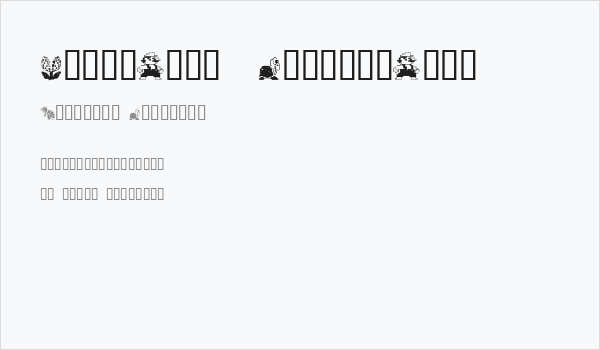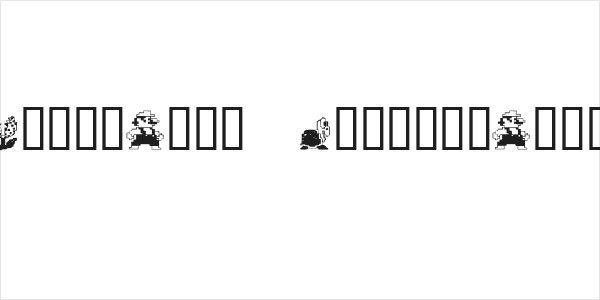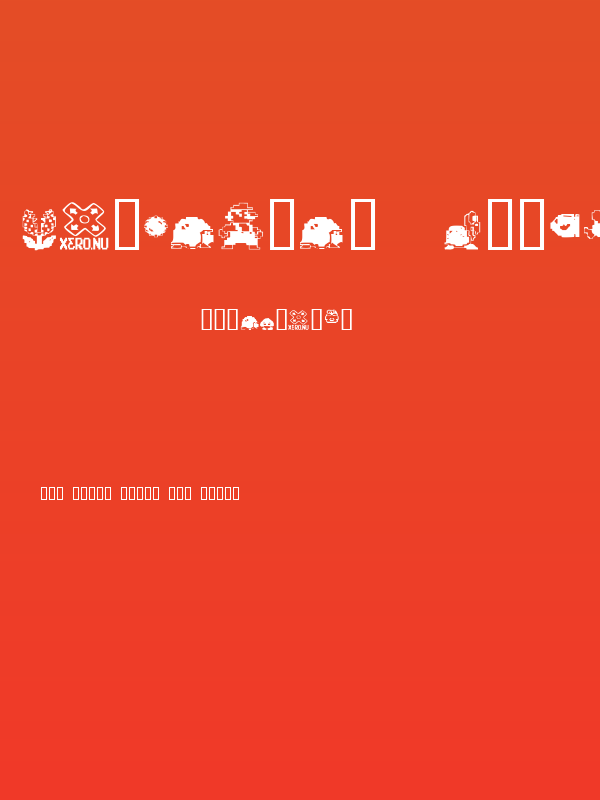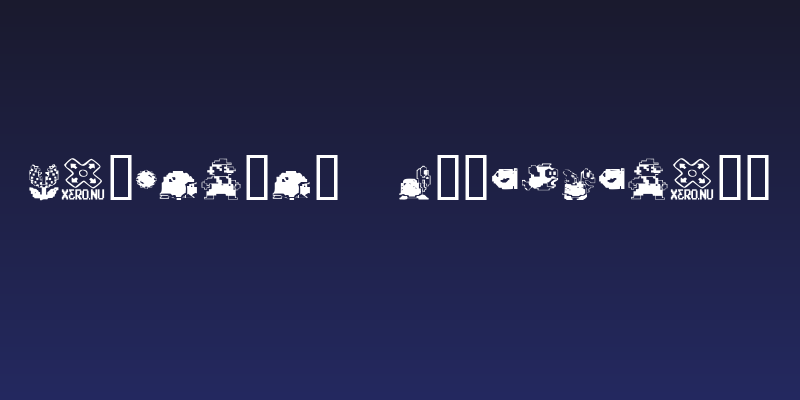
MarioBros DrunkenBatz Font
MarioBros DrunkenBatz Description
A highly decorative, pixel-art style font featuring iconic video game characters and elements as glyphs, with a playful and nostalgic appearance reminiscent of retro gaming graphics.
| Overall Style | Decorative, Retro, Playful |
| Use Case | Logos, Headlines, Posters, Themed graphics |
| Proposed Projects | Video game titles, retro-themed posters, fan art, event flyers, playful branding. |